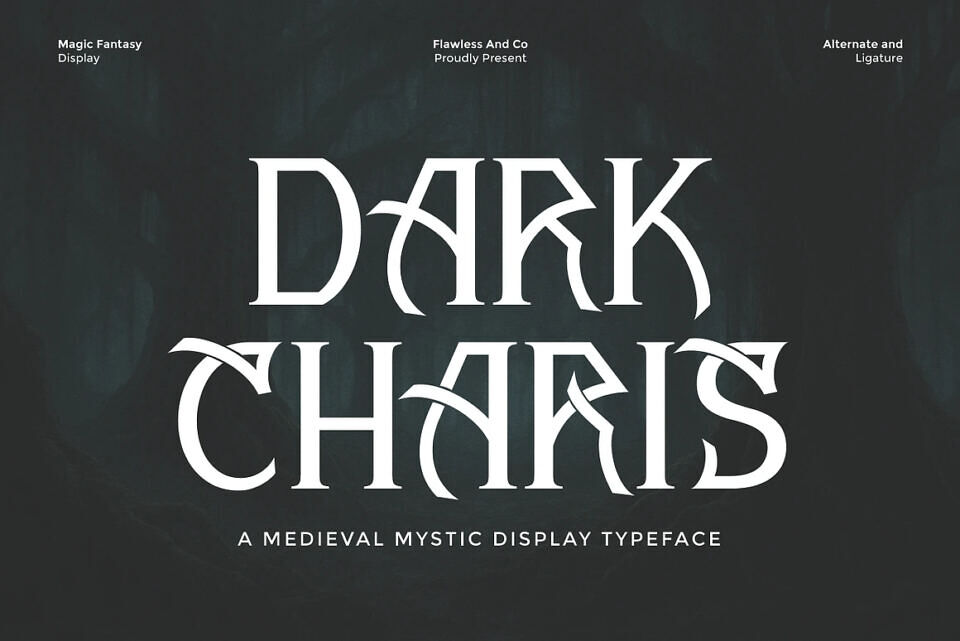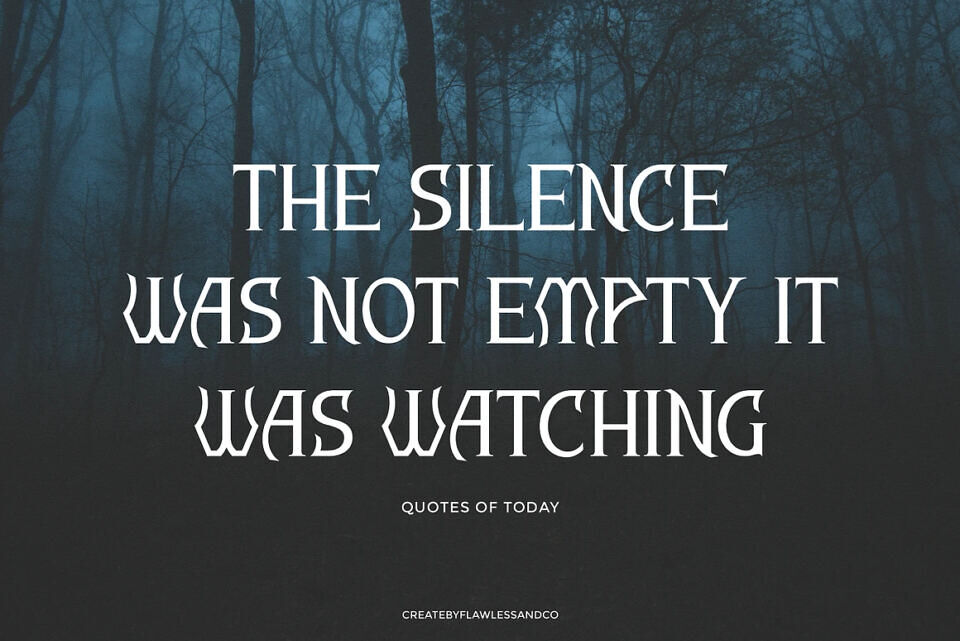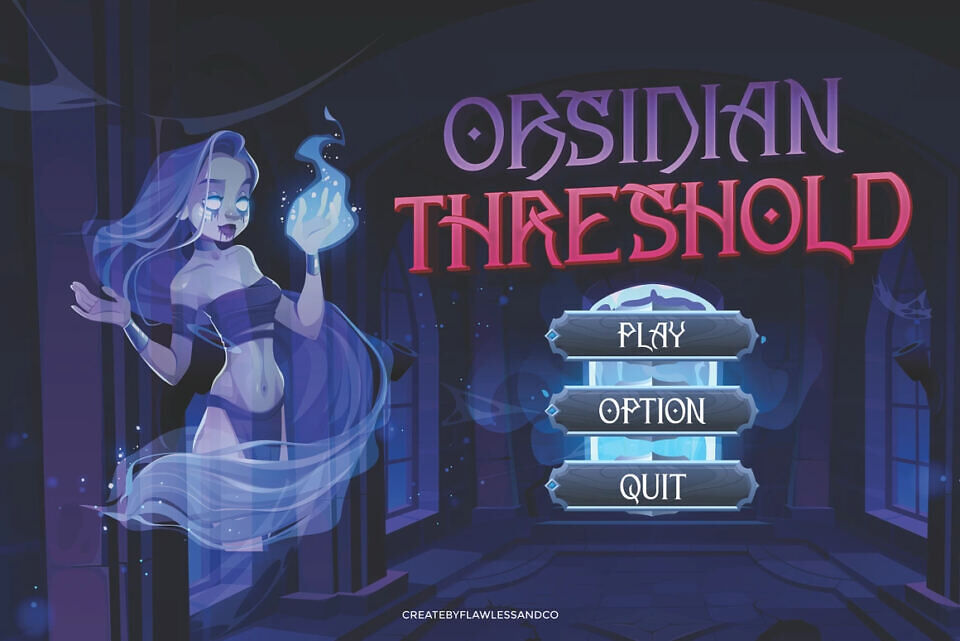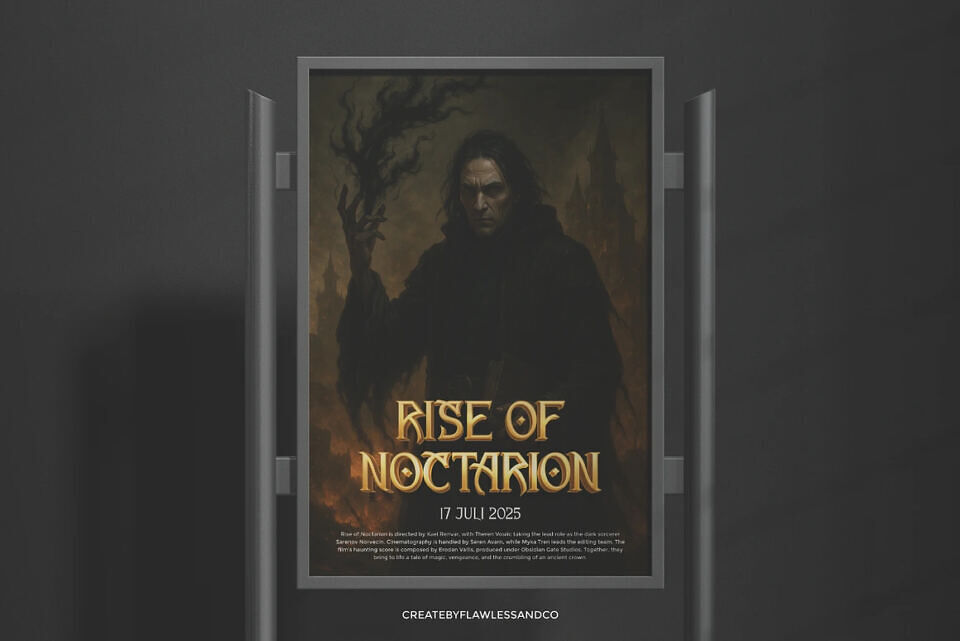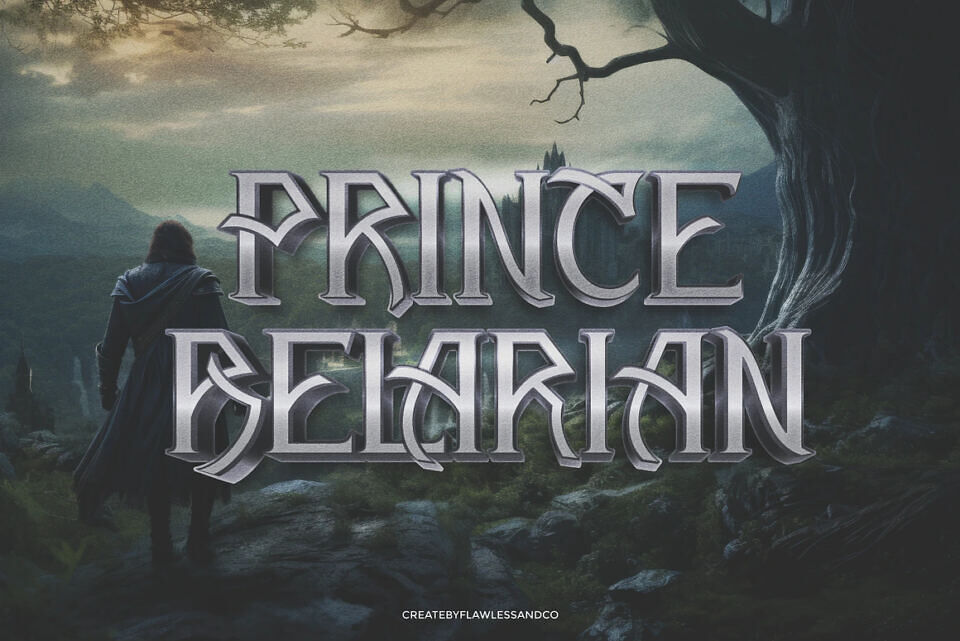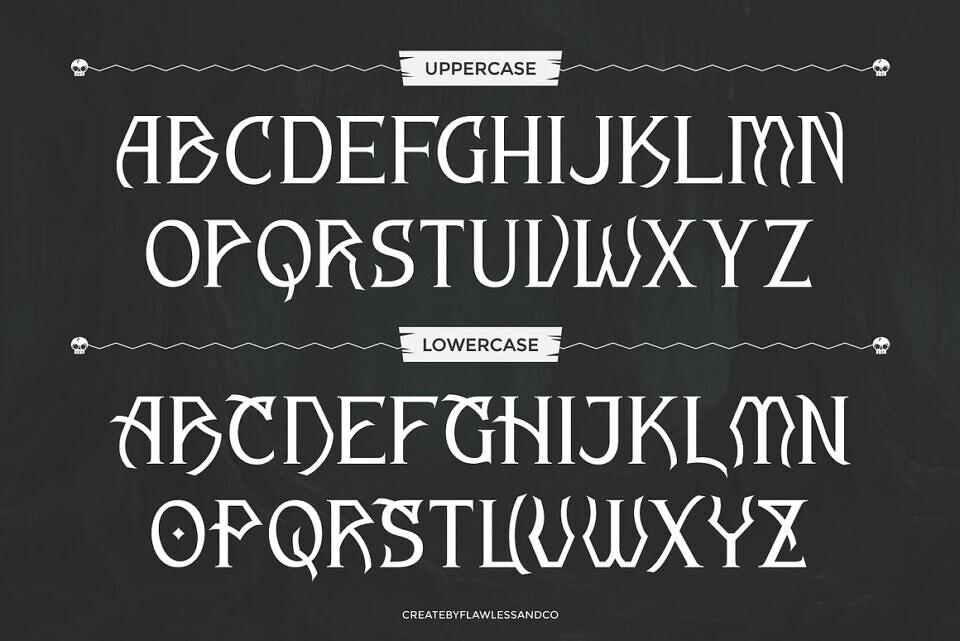
Dark Charis Font
Dark Charis is a bold fantasy display typeface that blends medieval mysticism with a modern creative touch. With its sharp curves, intricate ligatures, and enchanting design, this font instantly brings a sense of magic, mystery, and elegance to your projects.
Perfect for fantasy book covers, game titles, movie posters, logos, or branding that requires a strong and mystical presence, Dark Charis creates a dramatic visual impact. Its alternate characters and unique stylistic features make it versatile for both professional designers and creative enthusiasts.